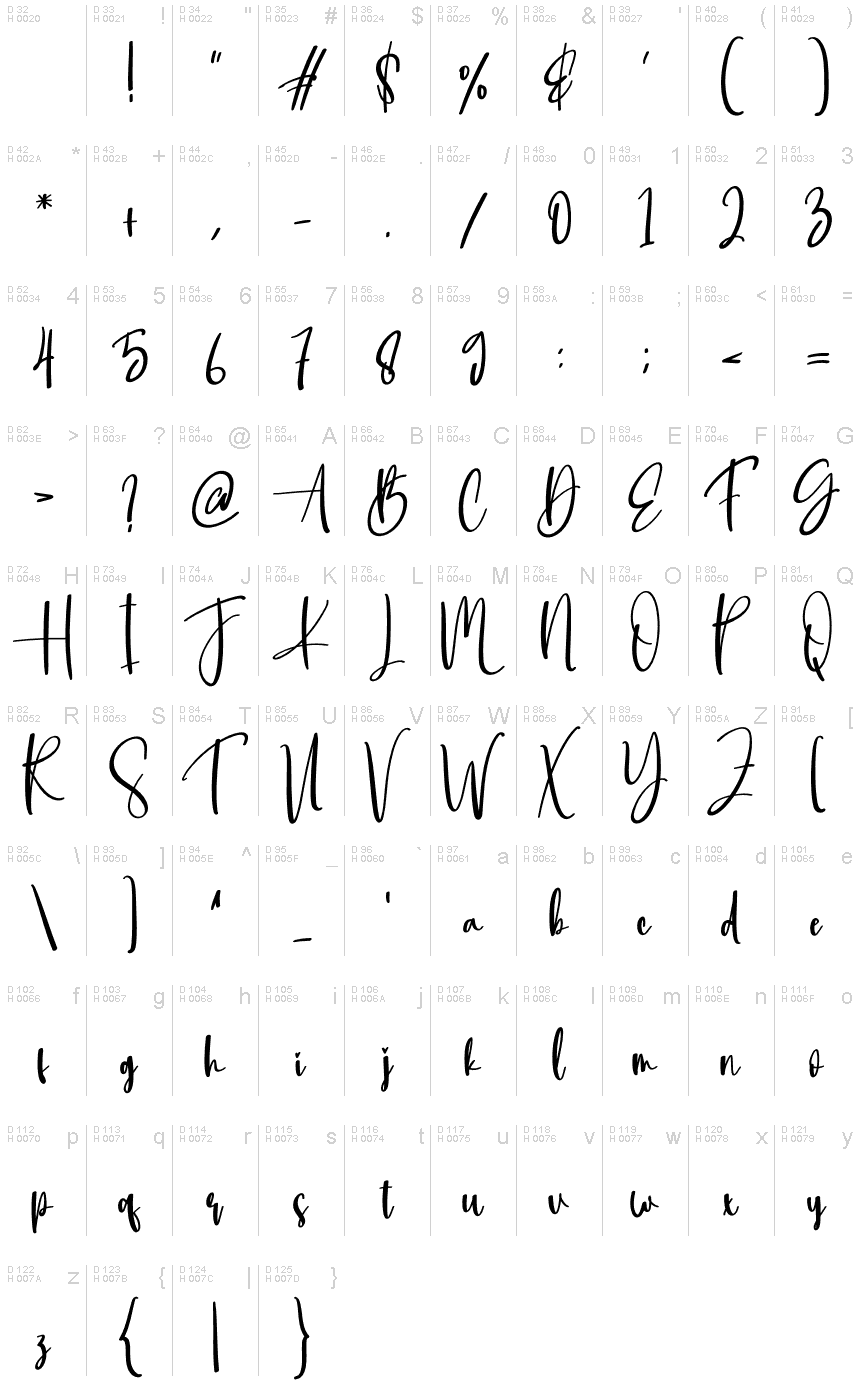
Sisterhood
Sisterhood, the handwritten semi-light font designed by scratchones, is perfect for projects that require a touch of elegance and femininity. Its condensed width allows for efficient use of space while maintaining readability. Whether designing a brand logo or creating personalized stationery, Sisterhood adds a sophisticated and personal touch to any project. From wedding invitations to fashion blogs, Sisterhood's delicate strokes and graceful curves make it an ideal choice for any project aimed at a female audience. Give your designs the feminine flair they deserve with Sisterhood condensed semi-light font.
the latest style letters are perfect for wall displays, wedding invitations, social media post logos, advertisements, product packaging, product designs, labels, photography, watermarks, invitations, stationery, and any project that requires taste handwriting.